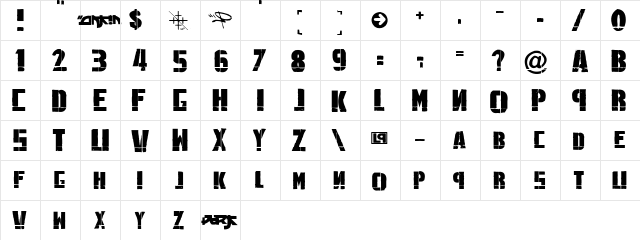
linkin park Regular Font Preview
linkin park Regular
linkin park Regular Font Details
Design Context for linkin park Typeface
linkin park is a composed and adaptable typeface that performs quietly and consistently across a wide range of design contexts.